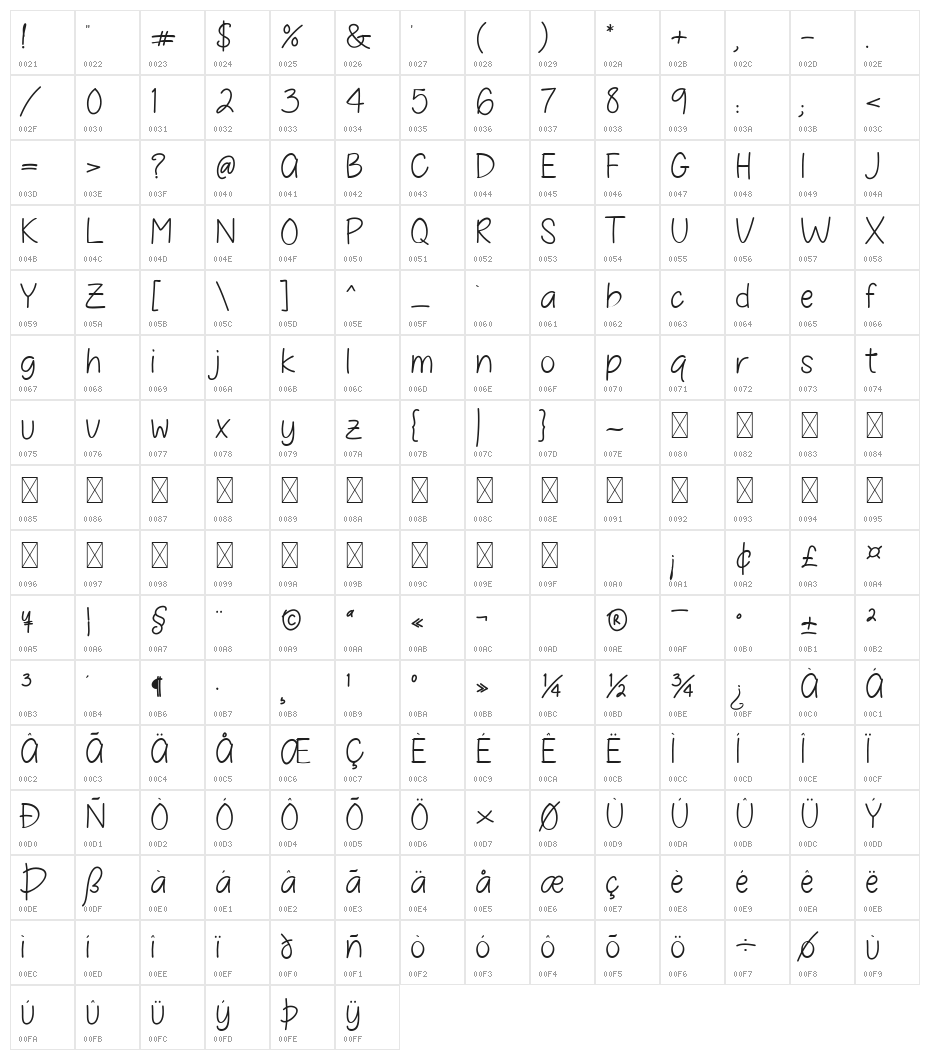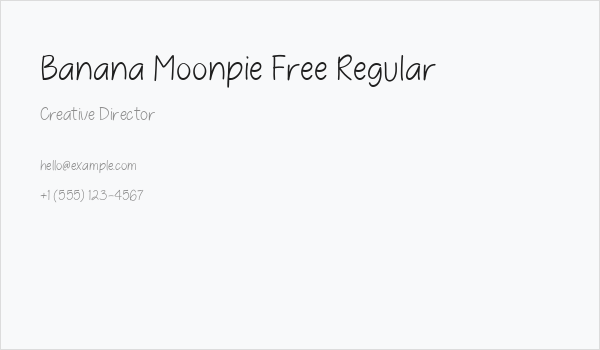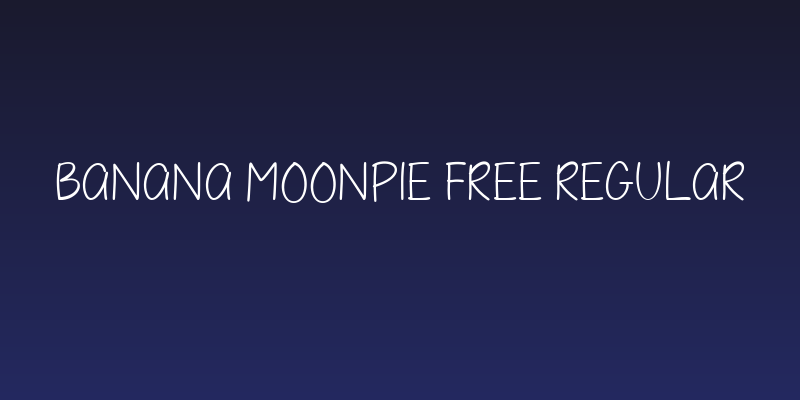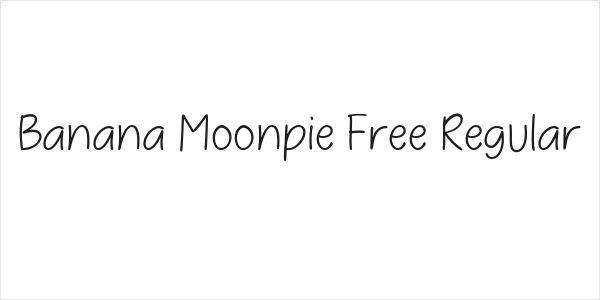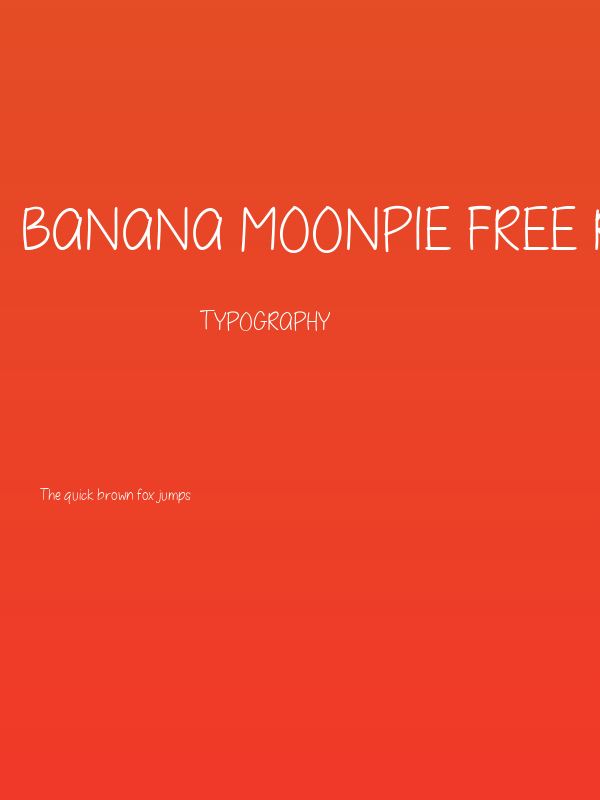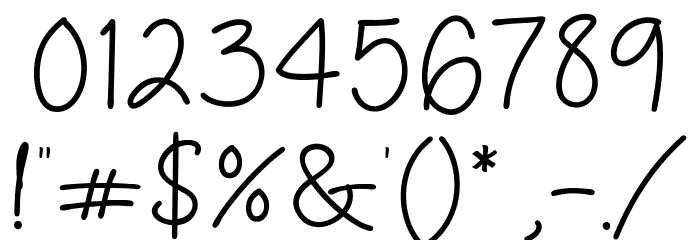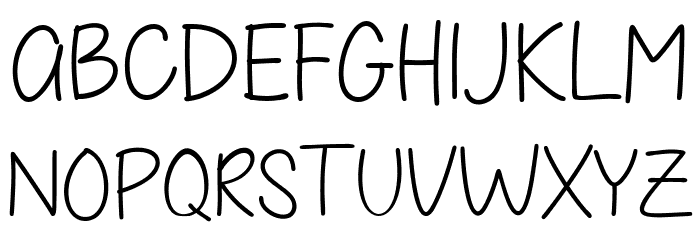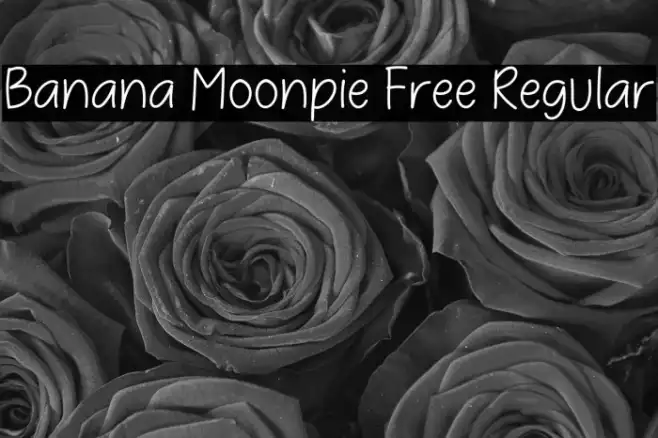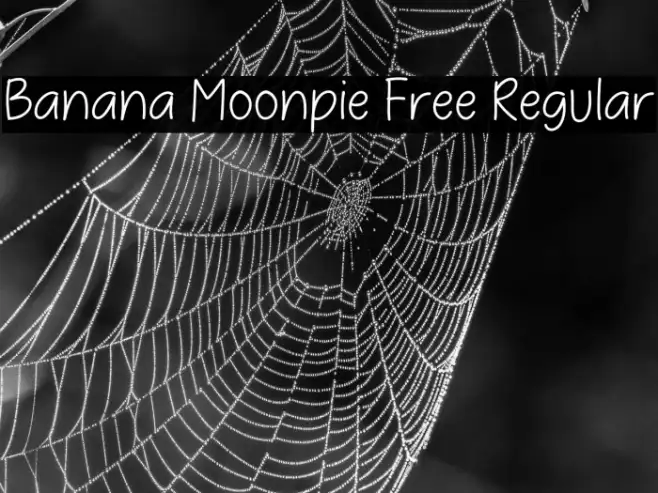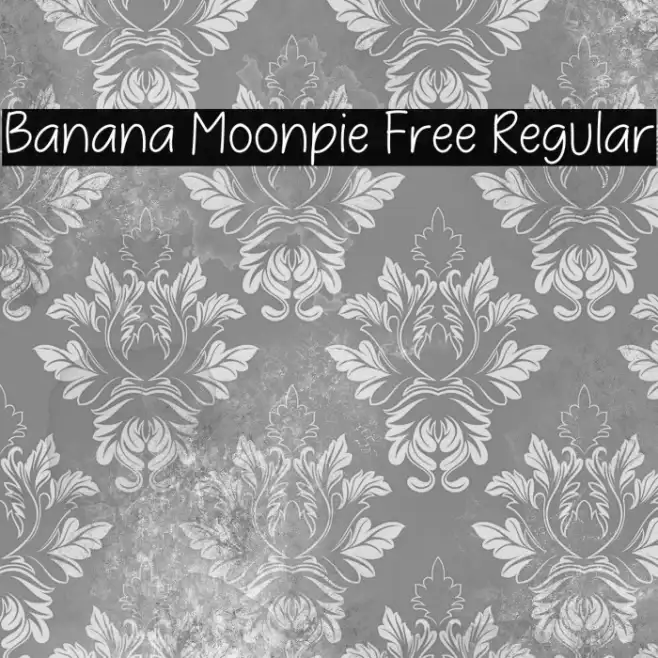
Banana Moonpie Free Regular Font
Banana Moonpie Free Regular Description
A playful and informal handwritten font with a casual and friendly appearance.
| Use Case | Headlines, Informal text |
| Proposed Projects | Greeting cards, children's books, casual branding. |